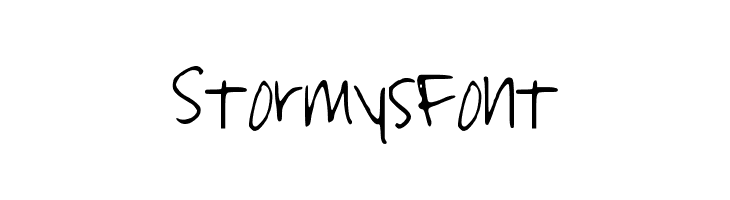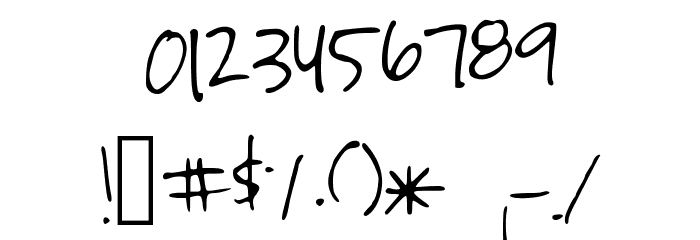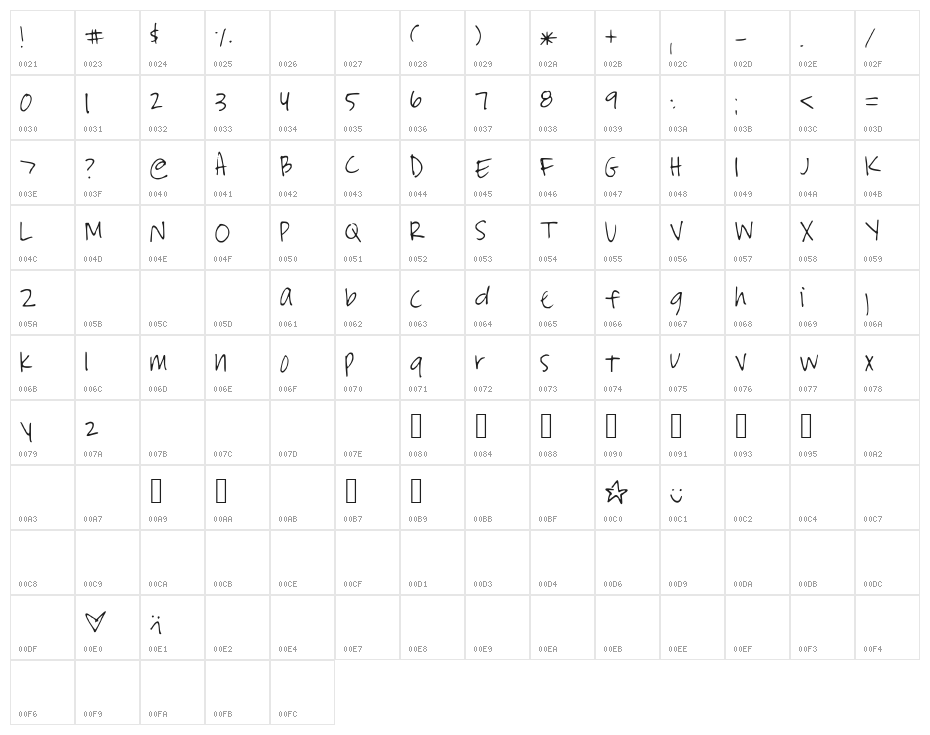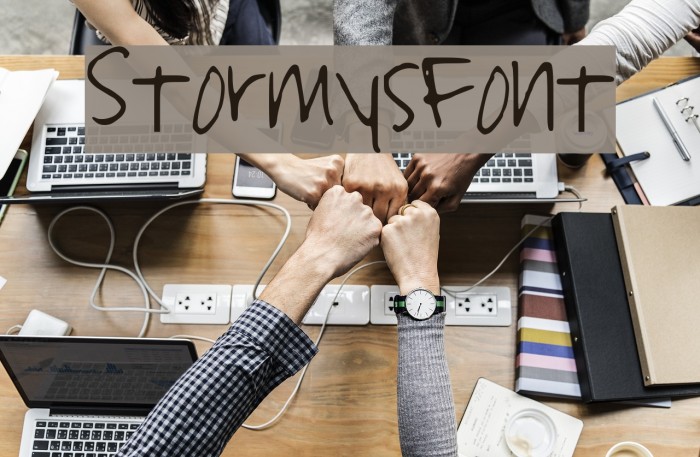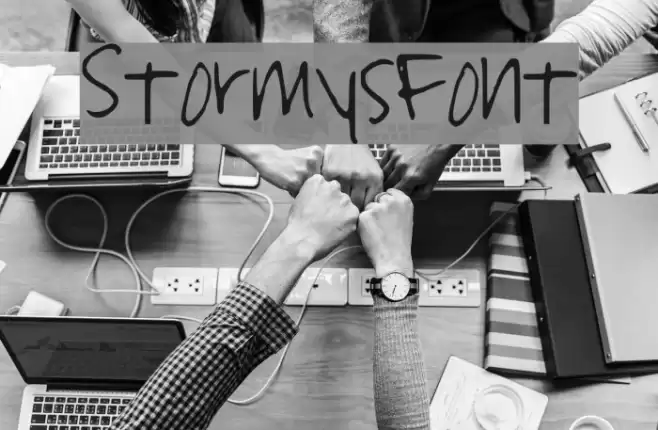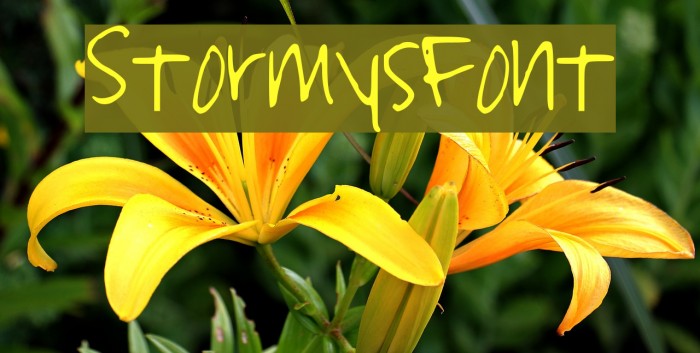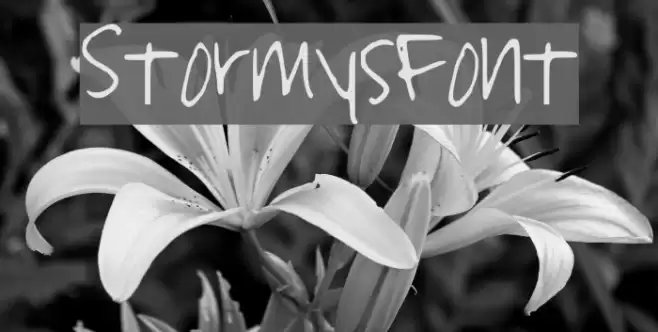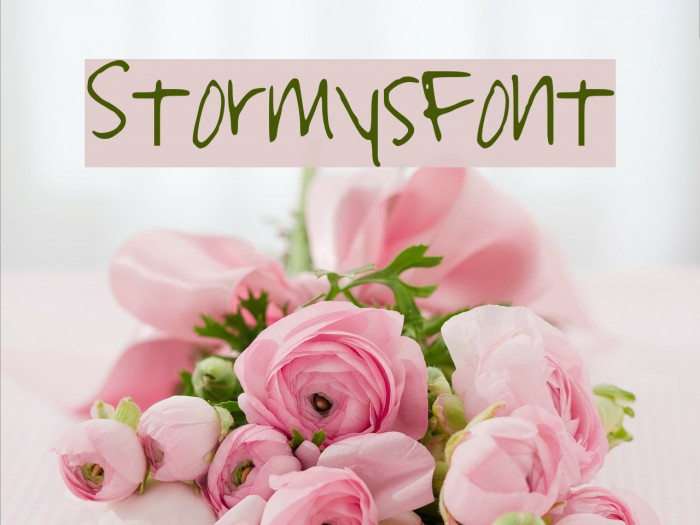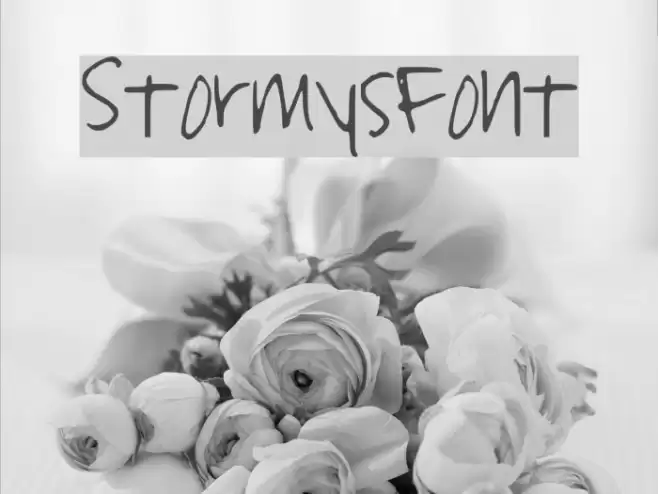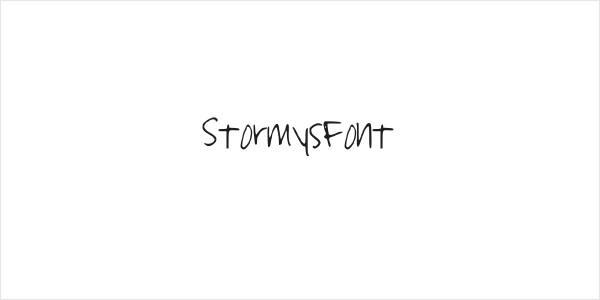
This font features a playful and informal handwritten style, characterized by its irregular strokes and casual appearance. The letters vary in size and angle, giving it a dynamic and lively feel. The uppercase and lowercase letters maintain a consistent flow, while the numerals and special characters complement the overall aesthetic. The font's organic and spontaneous look makes it suitable for projects that require a personal touch or a relaxed vibe.
| Proposed Projects | Ideal for greeting cards, personal blogs, casual invitations, and creative branding projects. |